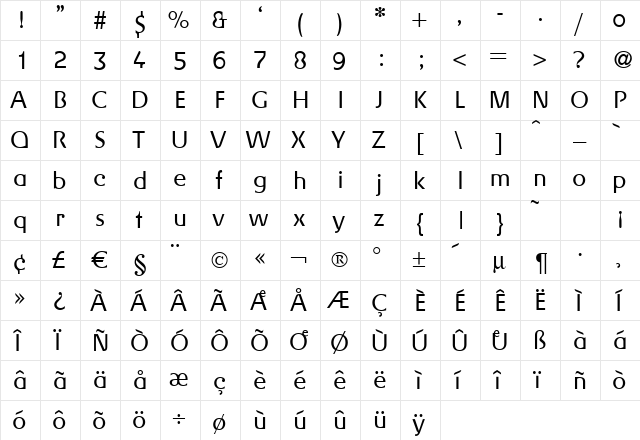
Gerling-Light Regular
Design Context for Gerling-Light Typeface
Gerling-Light offers clean, dependable letterforms without strong stylistic allegiance, making it a practical choice for designers who need flexibility. The delicate stroke weight brings airiness and refinement to layouts.
Pro Tip: Pair Gerling-Light with a font of contrasting weight or personality to build a more expressive typographic hierarchy.